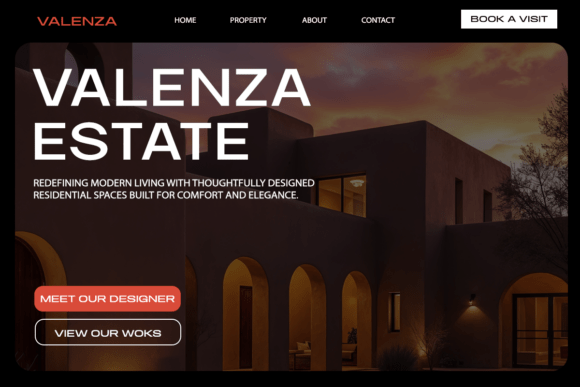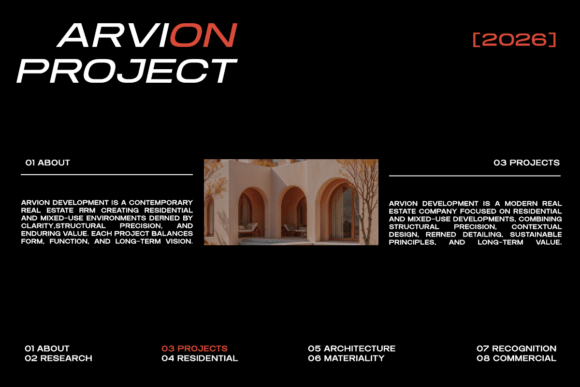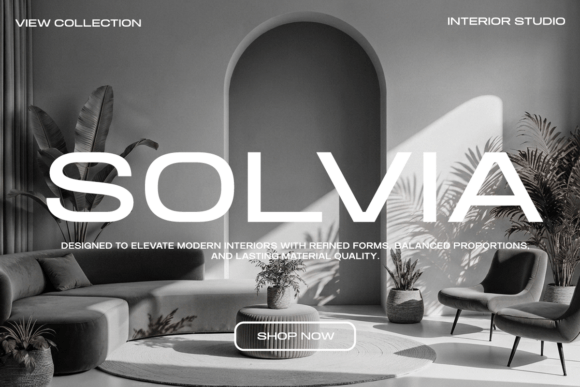
Introduction to Norvas Font
Norvas is a modern extended sans serif font designed to deliver a sleek, futuristic, and confident visual presence.
This font is ideal for branding, tech startups, digital interfaces, website headers, posters, advertising, product packaging, editorial layouts, and social media visuals Its modern extended form makes it especially powerful for bold headlines, logo design, and futuristic brand identities that demand attention.